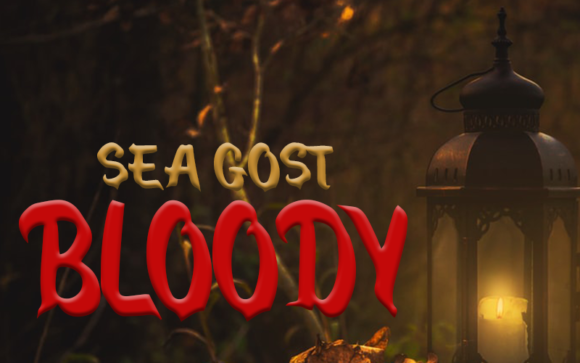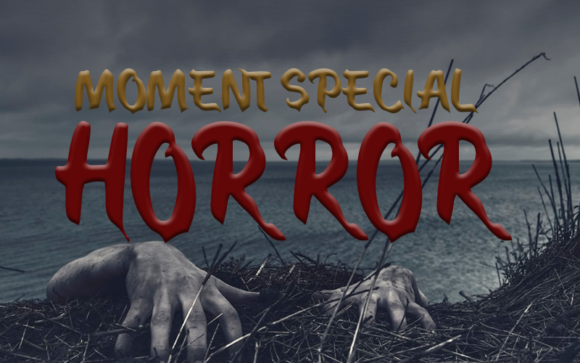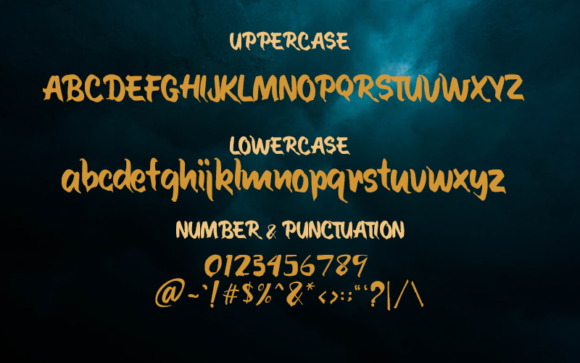
Introduction to Pocong Font
As a designer, there’s nothing quite like that moment when a project comes together, and you feel a rush of excitement. Maybe it’s a late-night brainstorming session, or a burst of creativity sparked by a new font discovery. For those who love the spooky and unknown, that moment might just arrive when you stumble upon the Pocong Font. This eerie display font is the perfect addition to any creative project, from movie posters to logos, and everything in between.
The Pocong Font is a valuable design resource for anyone looking to add a touch of macabre to their work. With its free download option, designers can easily incorporate it into their high-quality projects without breaking the bank. Plus, its transparent background makes it easy to layer over other design elements, giving you endless possibilities for creative expression.
Whether you’re working on a horror movie, a Halloween-themed logo, or simply want to add some spooky flair to your design portfolio, the Pocong Font is an essential tool to have in your arsenal.
Key Features of Pocong Font
- Unique, intricate design elements with transparent background, ideal for overlaying on images or videos.
- Designed to be scalable, with a size range of 10-1000 points, suitable for a variety of creative applications.
- Features a high resolution of 300 DPI, ensuring crisp and clear display on various devices and screens.
- Perfect for use in graphic design, digital art, and other creative projects that require a unique, eye-catching font.
- Can be easily customized and edited using popular design software, making it a versatile design resource.
Honest Review: Pocong Font
I recently came across the Pocong Font and I must say, it’s an interesting addition to my design resource collection. I downloaded it for free and was pleasantly surprised by the high quality of the font.
- Unique and quirky design that’s perfect for creative projects
- Transparent background, which makes it easy to use in various design contexts
- Not ideal for corporate or professional designs, as it may come across as too playful
- Some users may find the font too bold or overwhelming
- ⚠️ Limited font variations, which may make it less versatile than other fonts
Overall, I think the Pocong Font is a great choice for designers looking for a unique and eye-catching font for their creative projects. Just be mindful of the limitations and use it sparingly to avoid overwhelming your audience. ✨
Tips for Getting the Most Out of the Pocong Font
To get the most out of the Pocong Font, experiment with different font sizes, colors, and combinations. You can also use the font in conjunction with other design elements, such as images and graphics, to create a visually appealing design.
Common Use Cases for the Pocong Font
The Pocong Font is ideal for creative projects that require a unique and eye-catching font. Some common use cases include:
- Designing posters and flyers for events and promotions.
- Creating social media graphics and banners.
- Designing business cards and letterheads.
Montserrat Font is a geometric sans-serif typeface that originated in Buenos Aires. It’s a great choice for designers who want a high-quality font with a urban feel. Montserrat Font is available for free download and can be used for personal or commercial projects. When to use: Montserrat Font is suitable for design projects that require a strong, urban feel. Compared to Pocong Font, Montserrat Font has a more industrial feel and is better suited for projects that require a bold, modern look.
Q: Is the Pocong Font available with a transparent background?
Yes, the Pocong Font is available with a transparent background, making it ideal for use in creative projects that require a high level of design flexibility. The transparent background allows you to easily overlay the font on top of images or other design elements, giving you more creative control over your project.